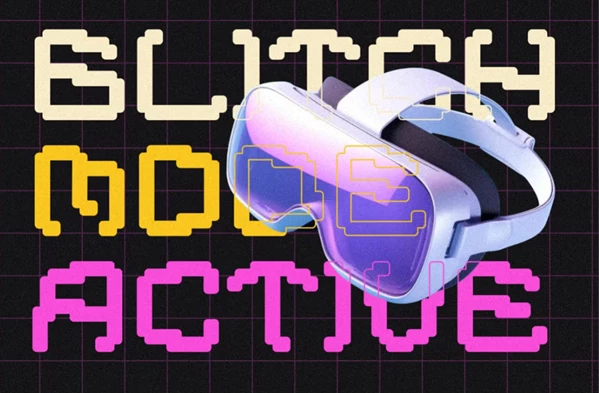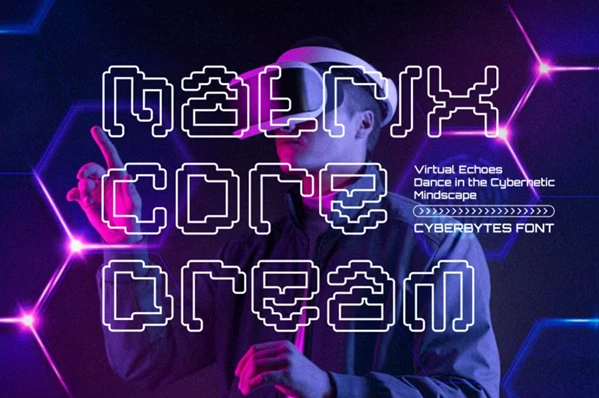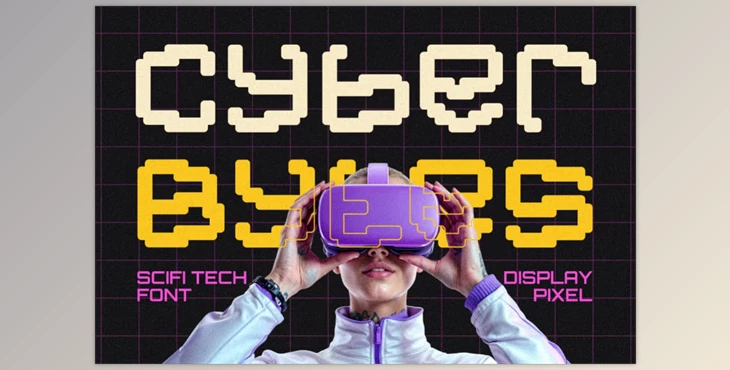
Cyber Bytes Futuristic Pixel Font:
Cyber Bytes is a modern-day pixel font that combines retro arcade nostalgia with contemporary digital style. It has a modular, grid-based contour with smooth and curved sharp terminals that remind one of glitch and virtual block shapes. Inspired by sci-fi screens, VR worlds, and cyberpunk visual culture, this font is decisive and bold. Although its design is pixelated, it still maintains a precise digital quality and a vivid sense of motion in its design, which fits forward-looking tech designs. As seen in the previews, the font is pixelated and accompanied by alternating color themes and layering that strengthen the immersive technology personality of the font.
Cyber Bytes is ideal for e-sports events, VR branding, movie titles, designed posters, and even packaging. The font provides a strong brand identity in both print and digital media, which is greatly complemented by its distinct recognition. It has been made to function well in titles, logos, and theme illustrations while ensuring legibility in diverse contexts. It can support multiple languages, making it versatile for use globally in the gaming sector, sci-fi literature, and innovative digital projects. From techno rave flyers to cybernetic interface mockups, this display font gives off an electrifying vibrancy to one’s creative energy.